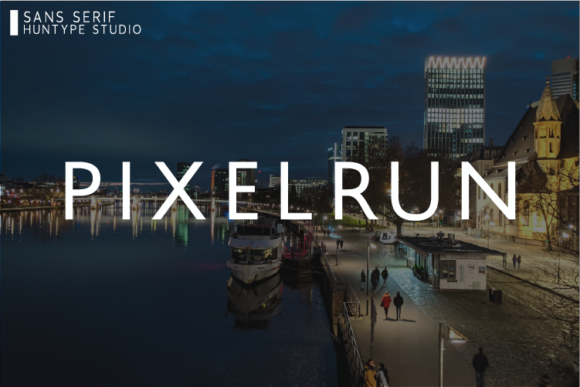
Behold Pixelrun, the sans serif font family that exudes elegance and versatility. Designed by the masterful Huntype, Pixelrun transcends the boundaries of ordinary fonts, captivating your designs with its timeless beauty.
Step into a world of endless possibilities with Pixelrun, a font family that adapts seamlessly to any style or environment. Whether you're crafting captivating invitations, designing sleek magazines, or creating dynamic websites, Pixelrun is your perfect companion.
Immerse yourself in the world of Pixelrun's infinite applications. Let your imagination soar as you craft elegant logos that radiate sophistication and leave a lasting impression. Transform your designs into masterpieces with Pixelrun's meticulously crafted characters, each stroke imbued with timeless grace.
Pixelrun's versatility extends beyond the realm of logos. Its alluring presence enhances invitations, adding a touch of refinement to every special occasion. Elevate your magazines with Pixelrun's crisp and legible text, ensuring effortless readability and an immersive experience for your readers.
With Pixelrun, websites transcend mere functionality, becoming captivating visual symphonies. Its clean lines and balanced proportions create a seamless user experience, guiding visitors through your digital realm with effortless elegance.
Pixelrun's versatility extends even further, gracing social media posts, branding materials, and marketing campaigns with its timeless charm. Its ability to effortlessly elevate any design makes it an indispensable tool for businesses seeking to create a lasting impact.
Pixelrun's allure lies in its ability to evoke emotions, stirring the depths of human connection. Its graceful curves and sharp angles harmonize perfectly, creating a visual symphony that resonates with audiences.
So, embark on a creative journey with Pixelrun, the font family that ignites your imagination and empowers you to create designs that speak volumes. Dive into a world of elegance and versatility, where every project becomes a masterpiece.